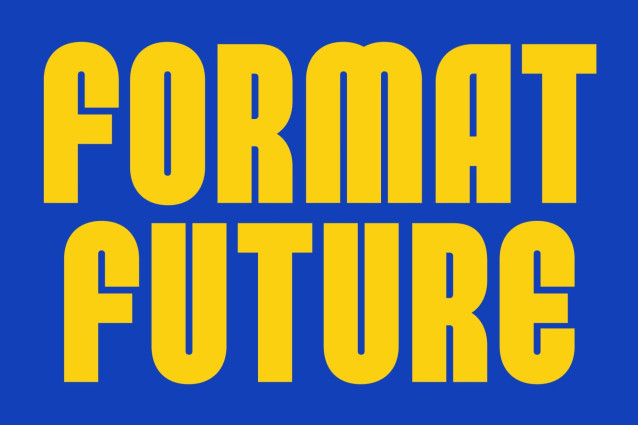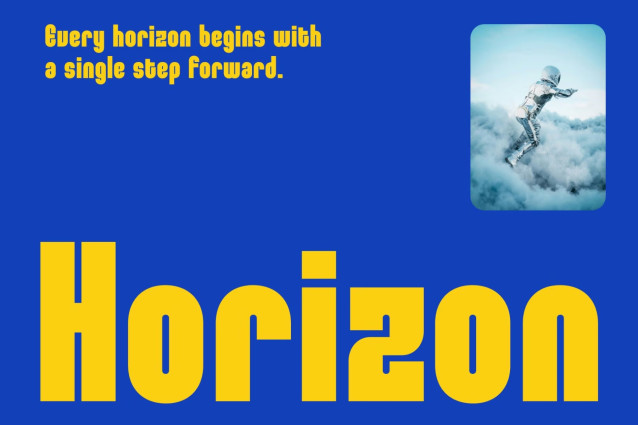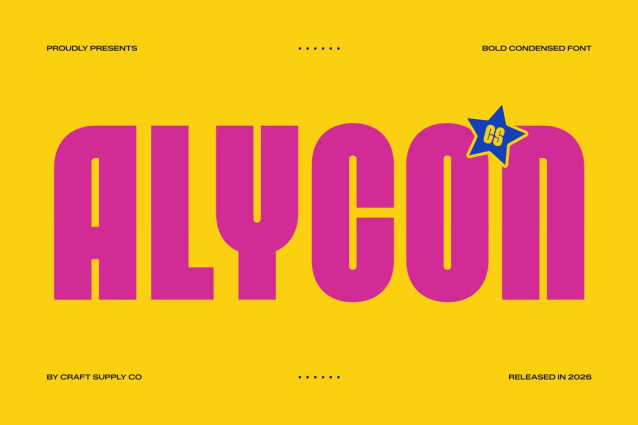
CS Alycon – Condensed Font
CS Alycon – Bold Condensed Display Sans Serif: Where 80s Retro Energy Meets Modern Precision
Condensed Letterforms with Bold Visual Impact
This is a bold condensed display sans serif font designed to command attention through its compact proportions and confident structure. Its strong, space-efficient letterforms maximize visual impact while maintaining excellent clarity, making it ideal for bold headlines and striking display typography. The condensed construction allows every composition to feel powerful without overwhelming the layout.
1980s Inspiration with Contemporary Clarity
This font captures the playful energy and bold confidence of retro typography while maintaining a clean, modern edge. Its balanced forms evoke nostalgic charm without feeling dated, resulting in a typeface that seamlessly bridges vintage aesthetics and contemporary design sensibilities.